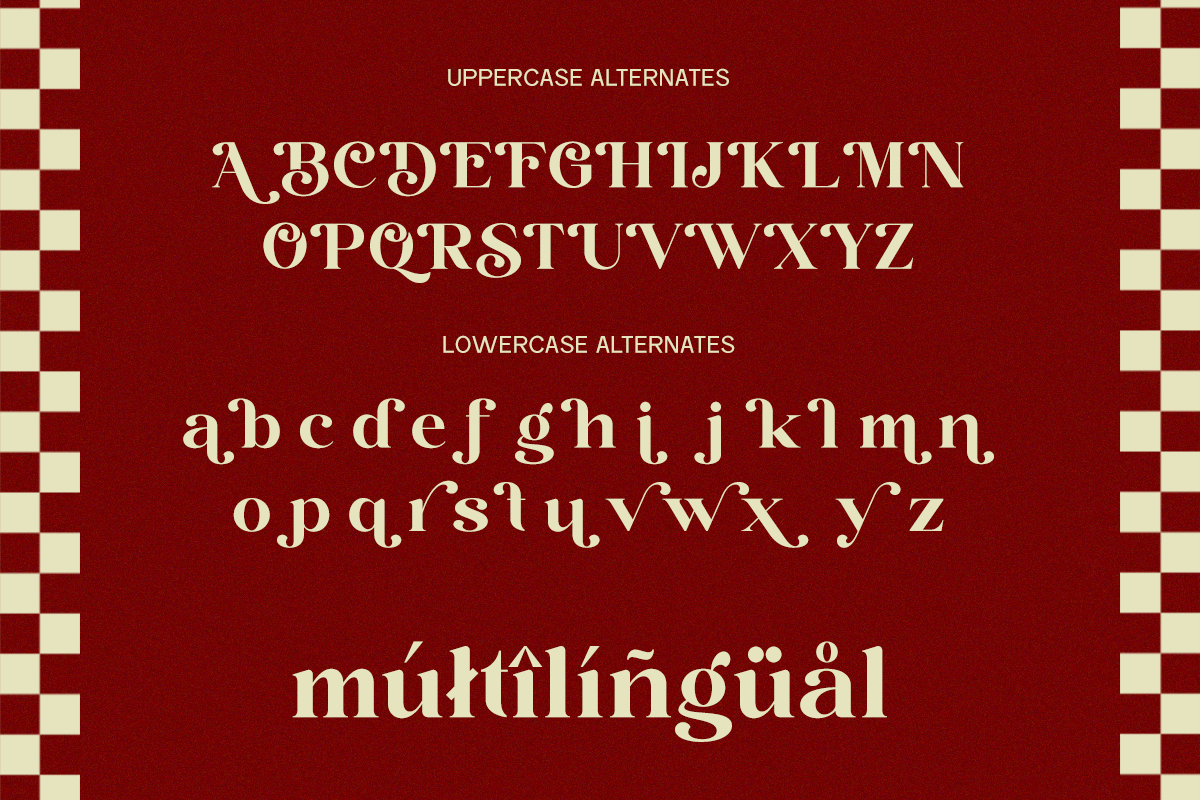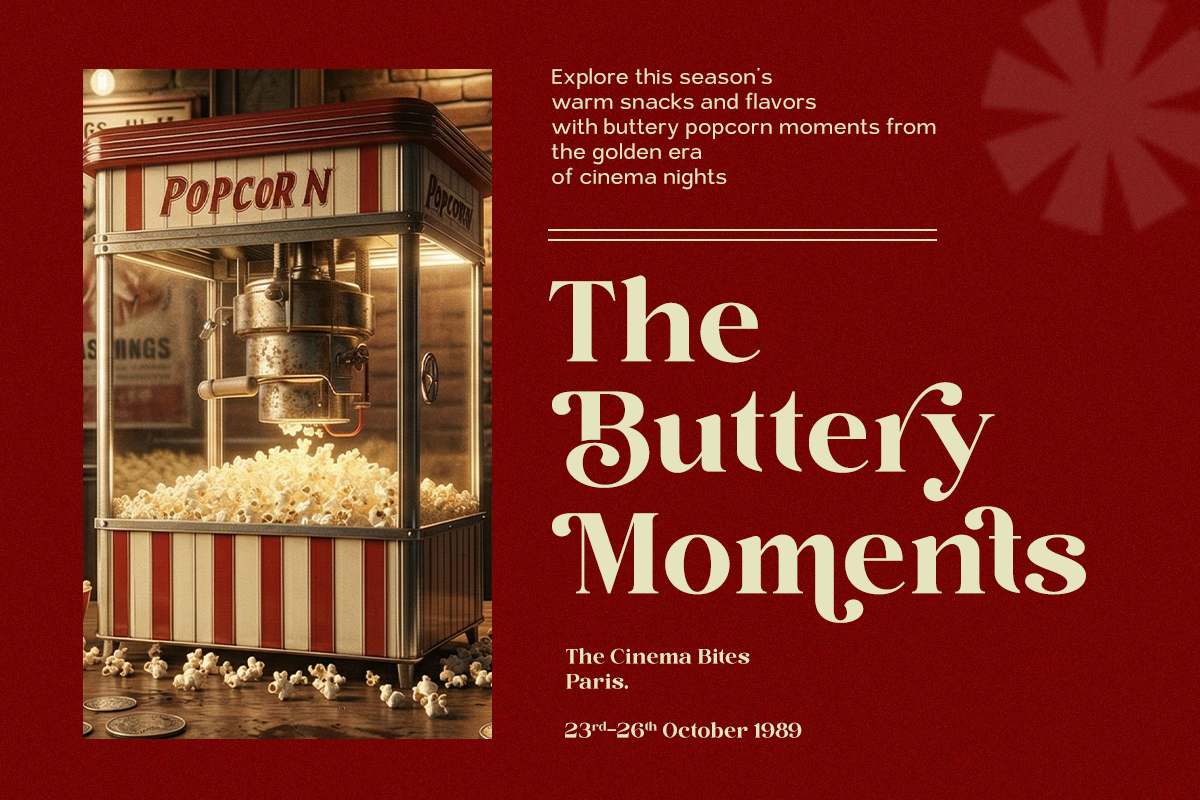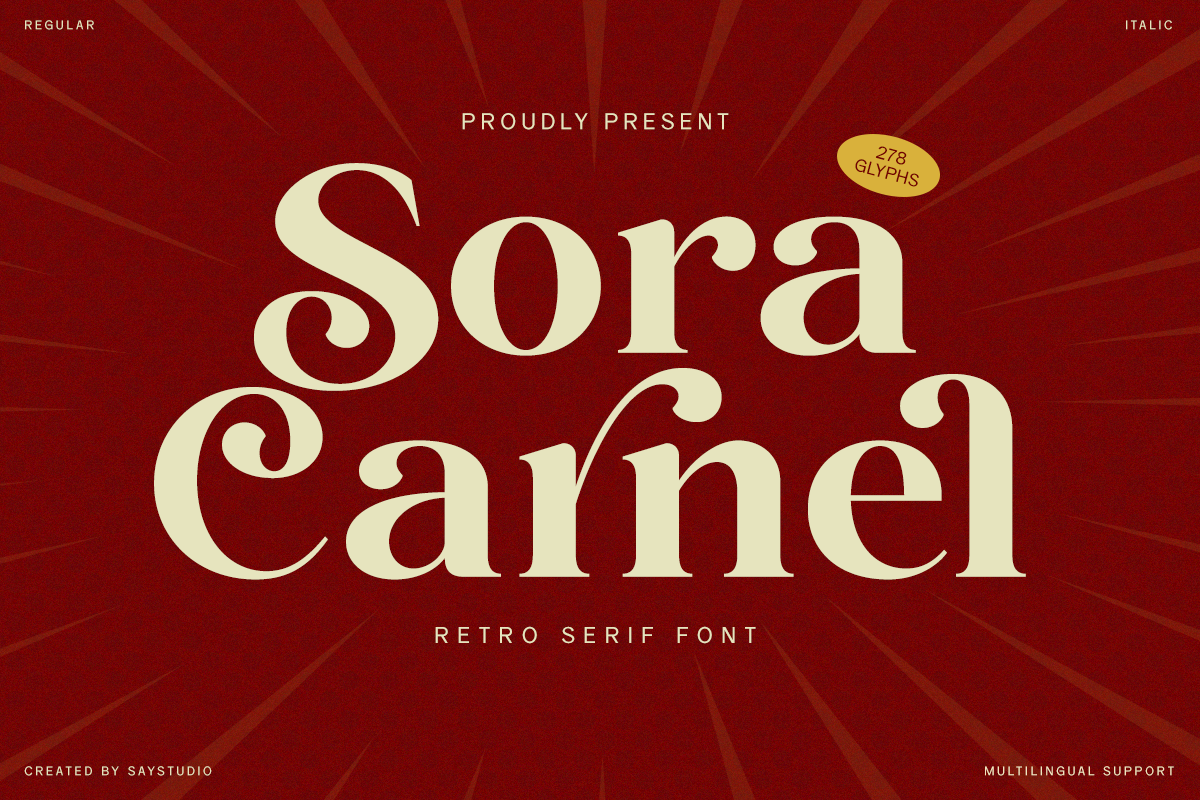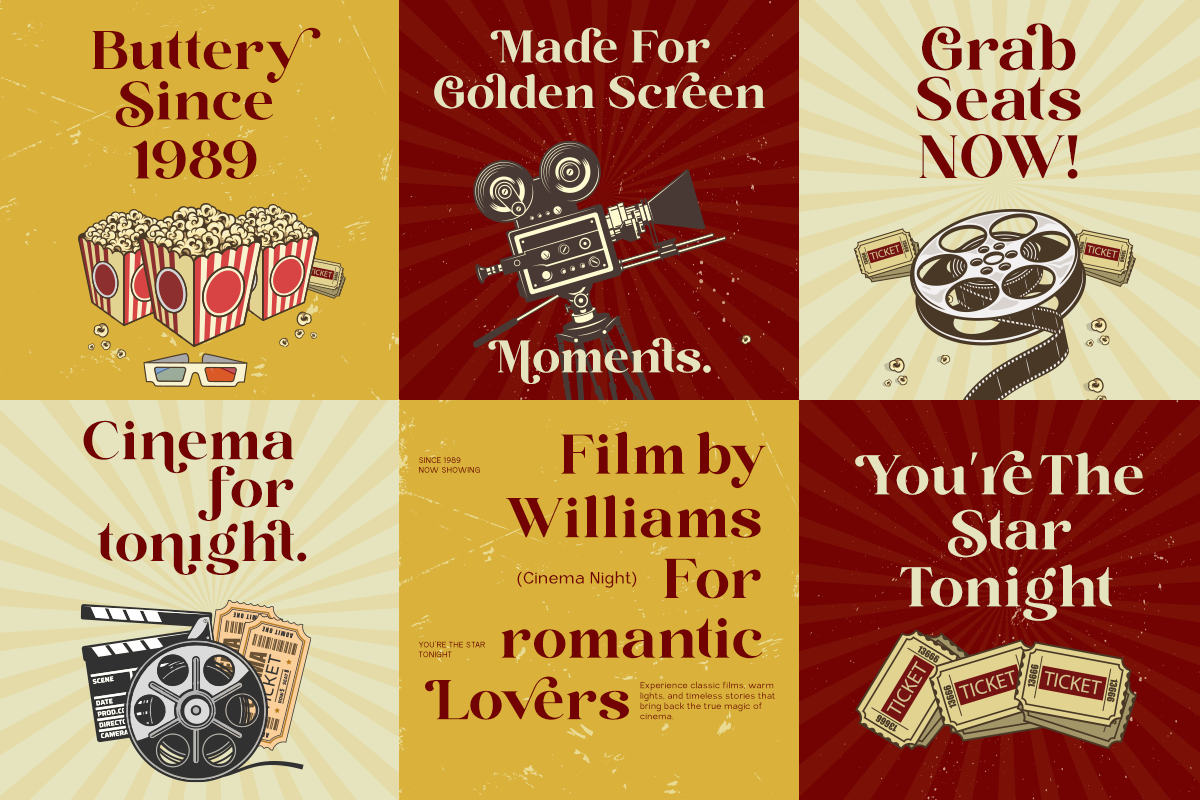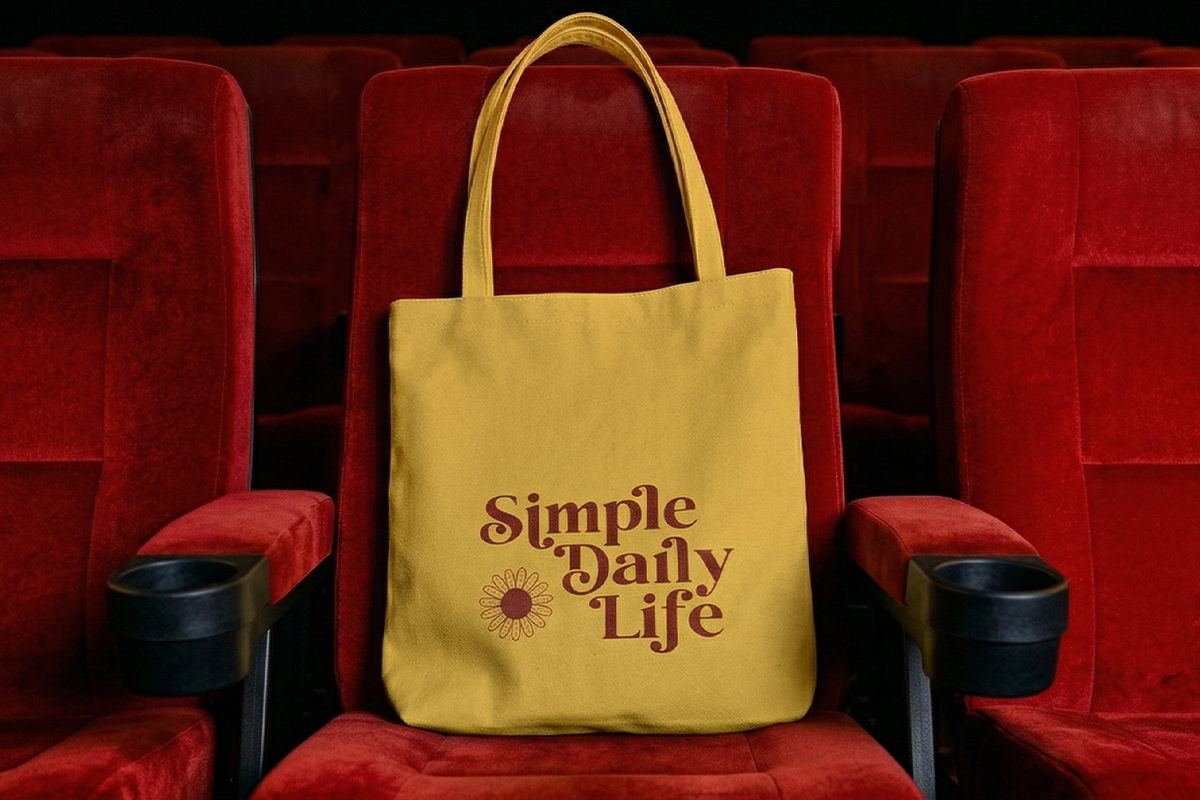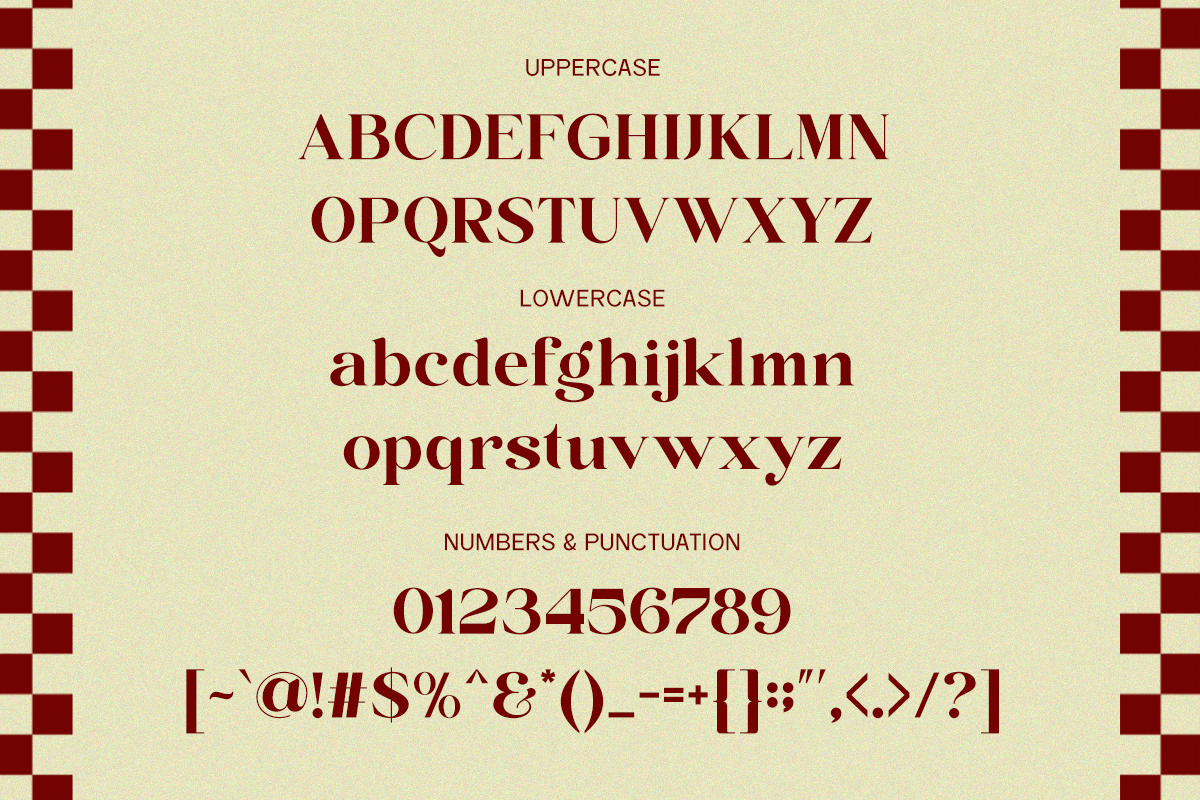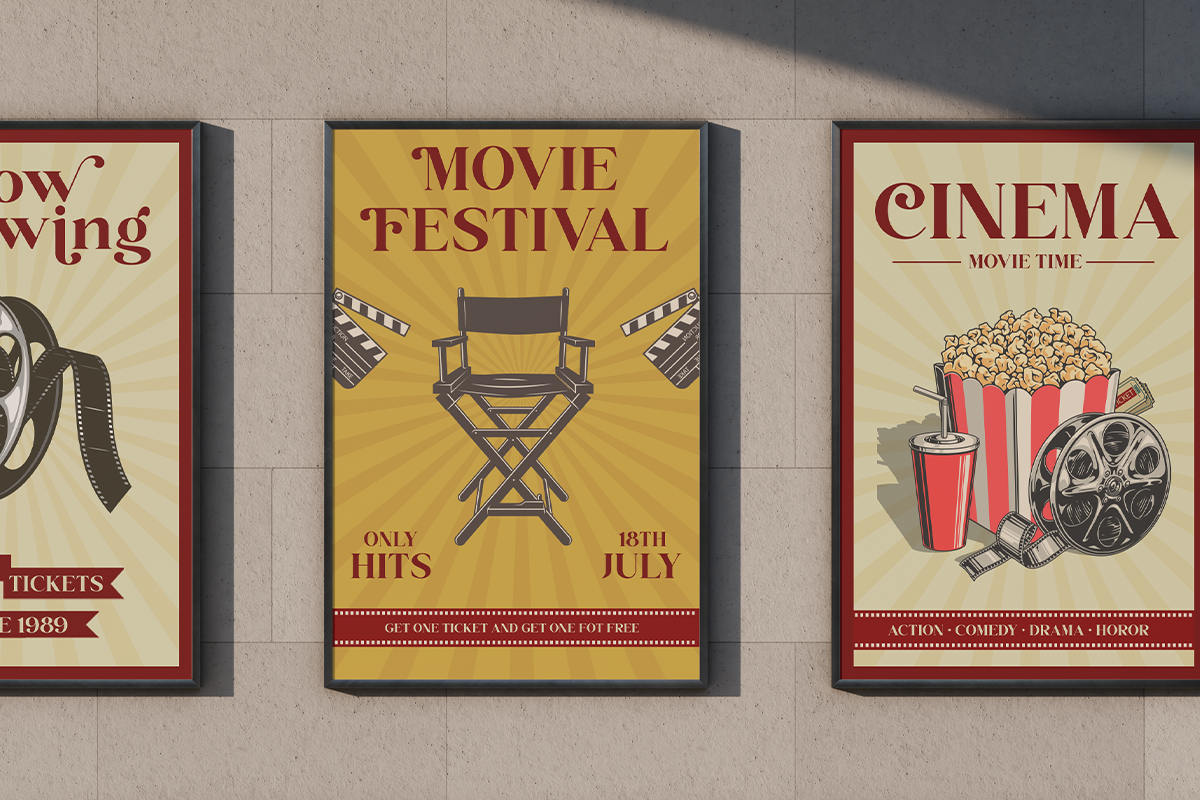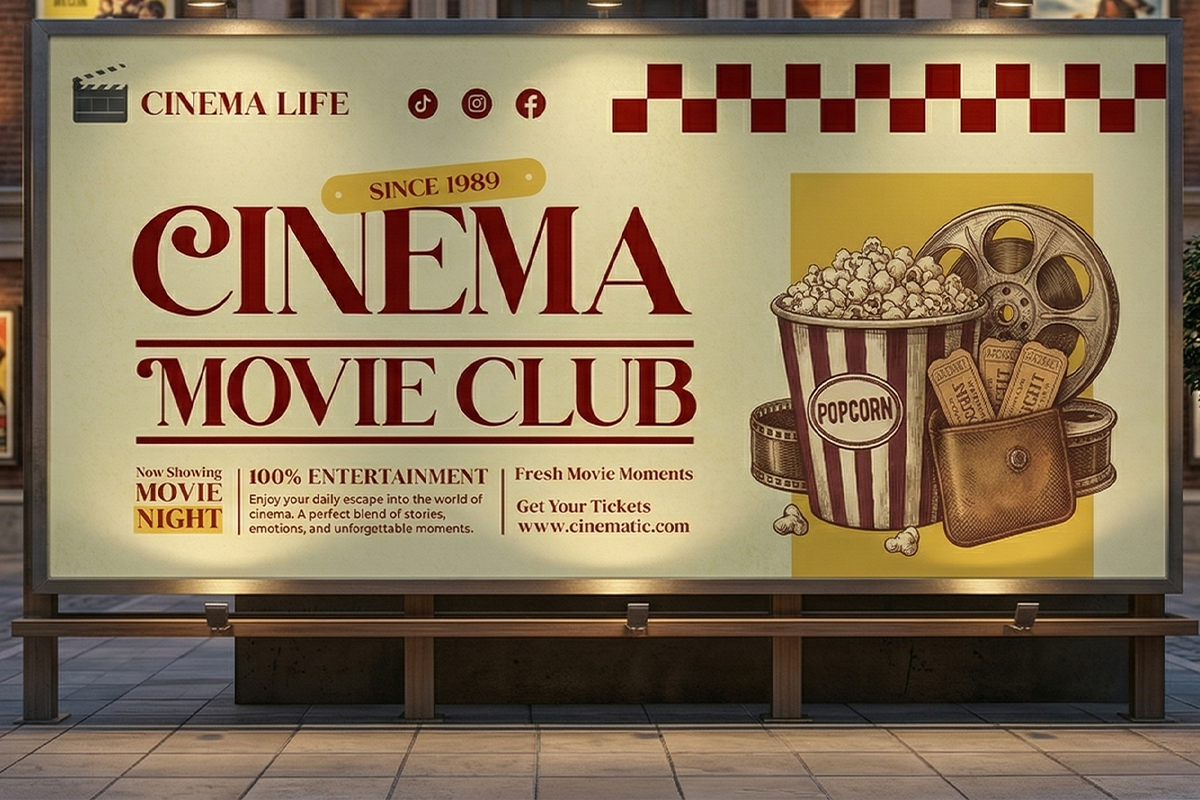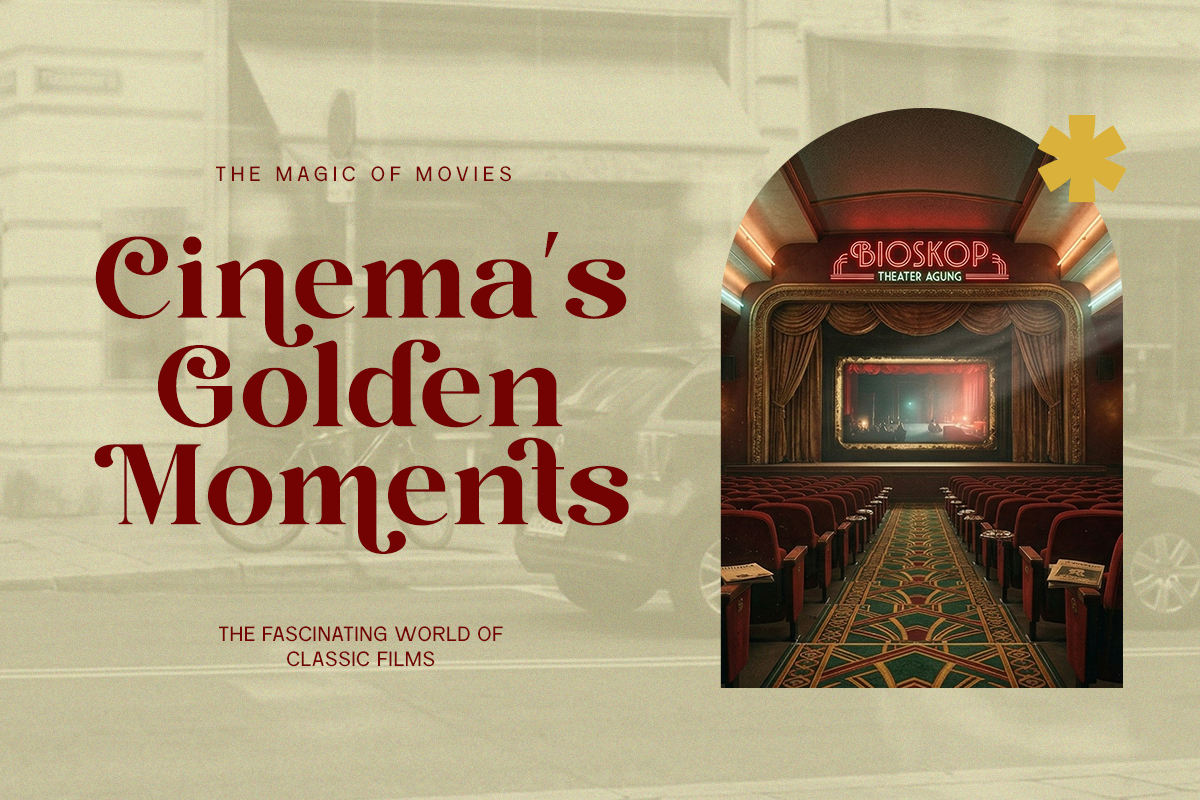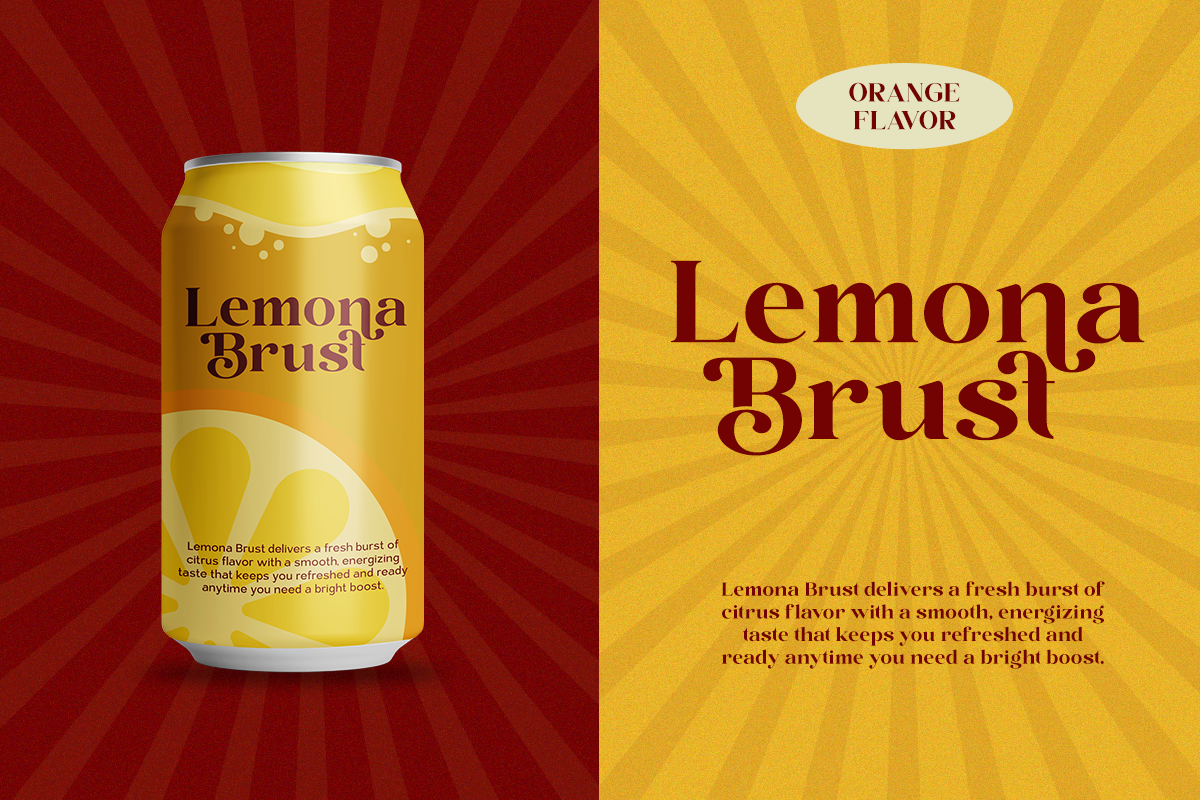
Sora Carnel - Retro Serif Typeface
Sora Carnel is a retro serif font that brings a nostalgic charm with a modern twist. Inspired by vintage typography and classic print design, this typeface features bold curves, playful terminals, and distinctive character shapes that instantly evoke a warm, timeless feel. Its personality is both expressive and elegant, making it stand out in any creative composition.
Designed for versatility, Sora Carnel works beautifully across branding, posters, packaging, and editorial layouts. Its retro aesthetic makes it perfect for vintage-themed designs, while the clean execution keeps it relevant for modern applications. Whether used for bold headlines or stylish branding, it delivers a unique and memorable visual identity.
With a rich set of glyphs and multilingual support, Sora Carnel is crafted for global use and professional design needs. It’s an ideal choice for designers looking to create eye-catching, nostalgic, and stylish typography with a strong character.
- Standard Uppercase & Lowercase
- Symbol & Number